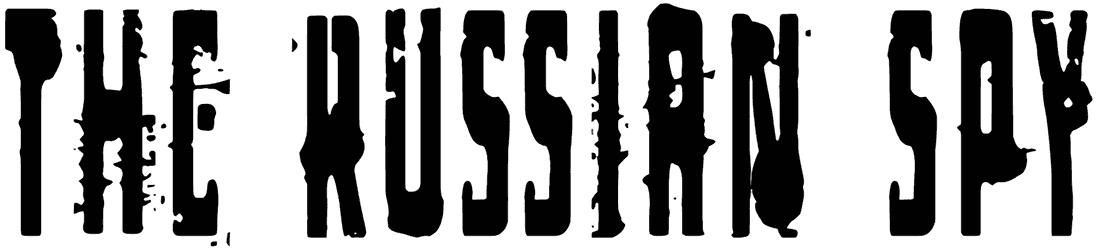
The Russian Spy Font
If there’s one thing you can’t mess with, it’s The Russian Spy. You immediately know what’s going on when you get to know this eroded font. There’s gonna be a lot of action, possibly a puzzle that needs an answer, and probably even a lot of lives at risk.
The fact that it looks so messy doesn’t make things any more comfortable. That kind of tortured look won’t go to waste when you turn it into movie posters or mystery books.
The Russian Spy.